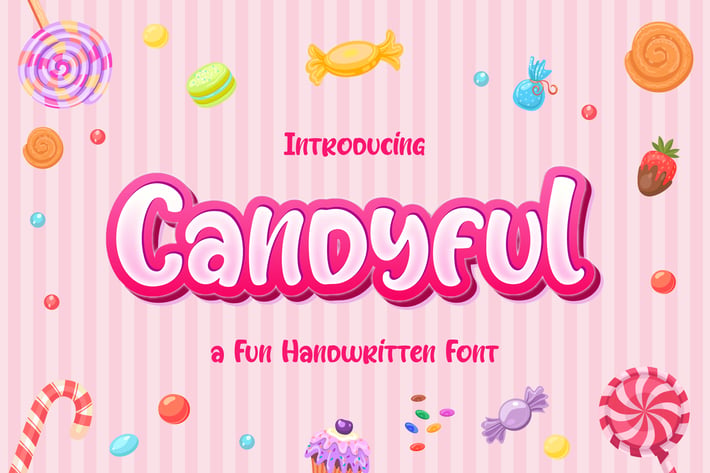
Candyful - a Fun Handwritten Font
Candyful is a fun display handwritten font. Playful and fresh, this font will be a hit for each of your children or school projects!